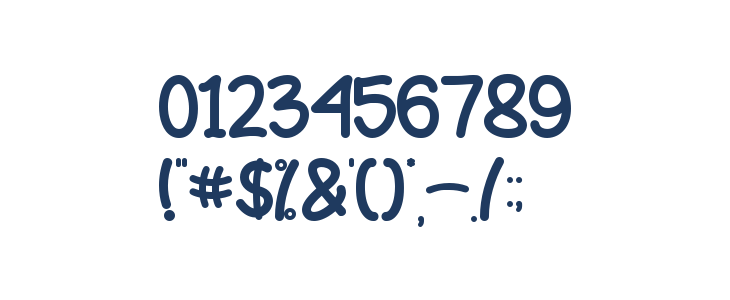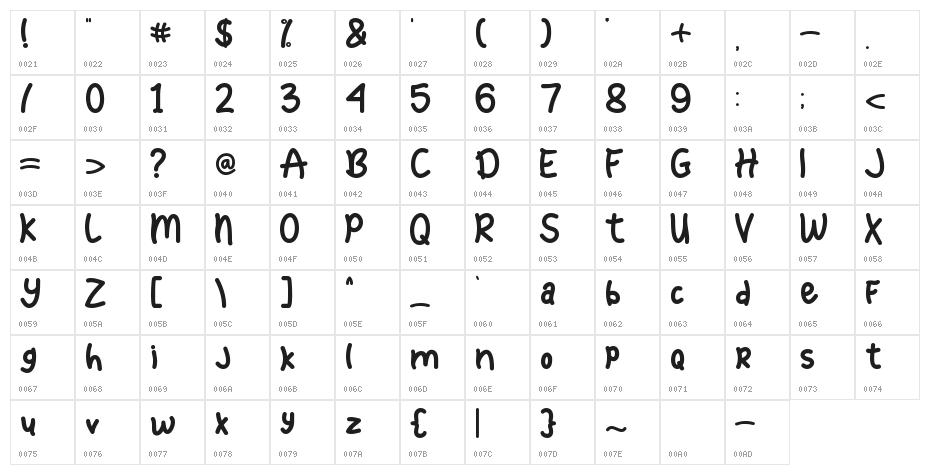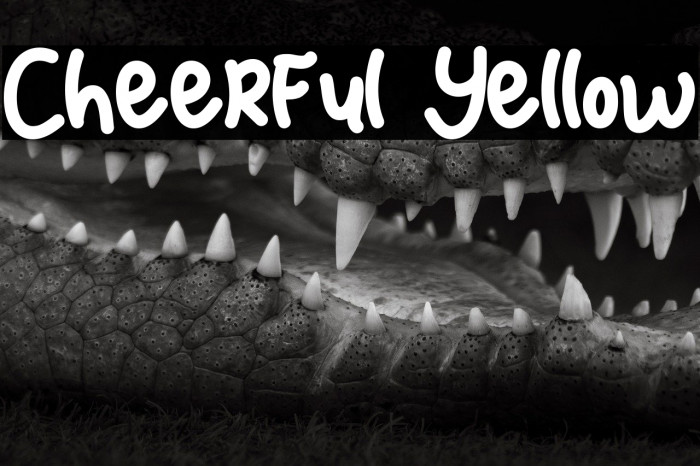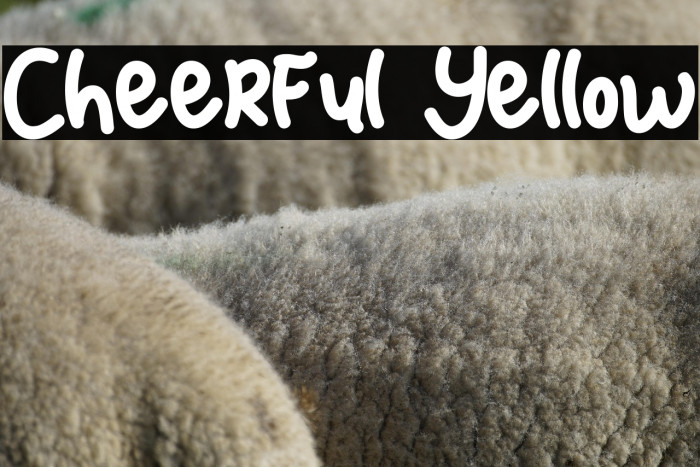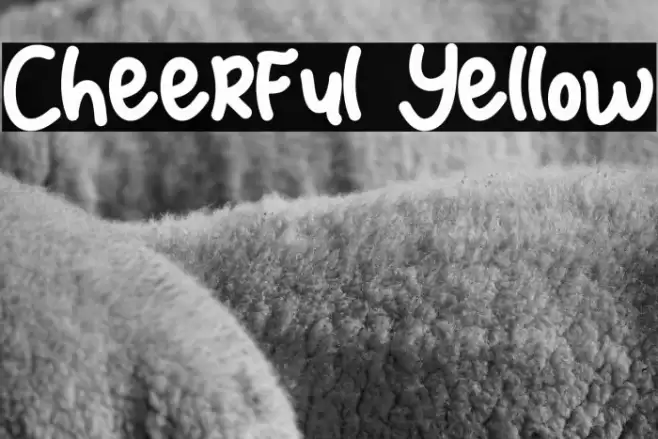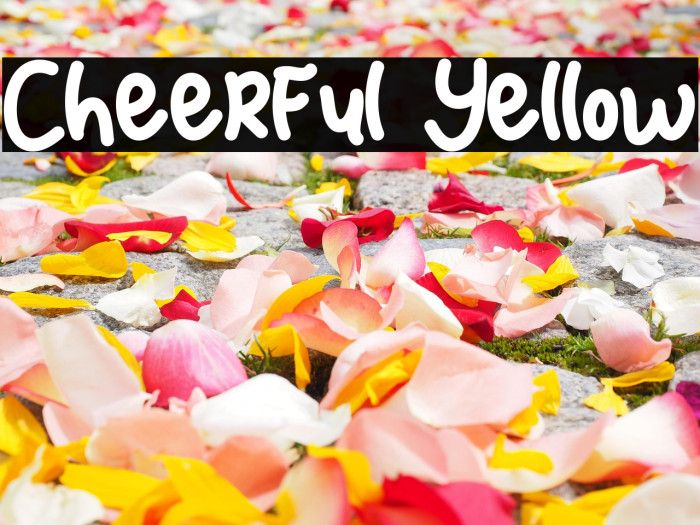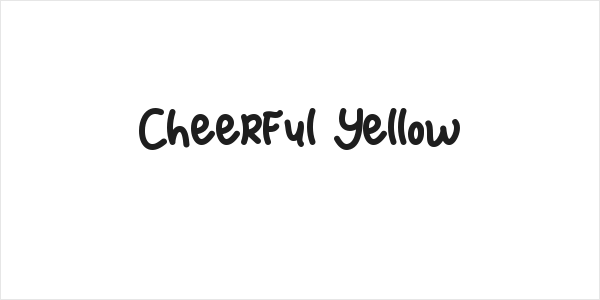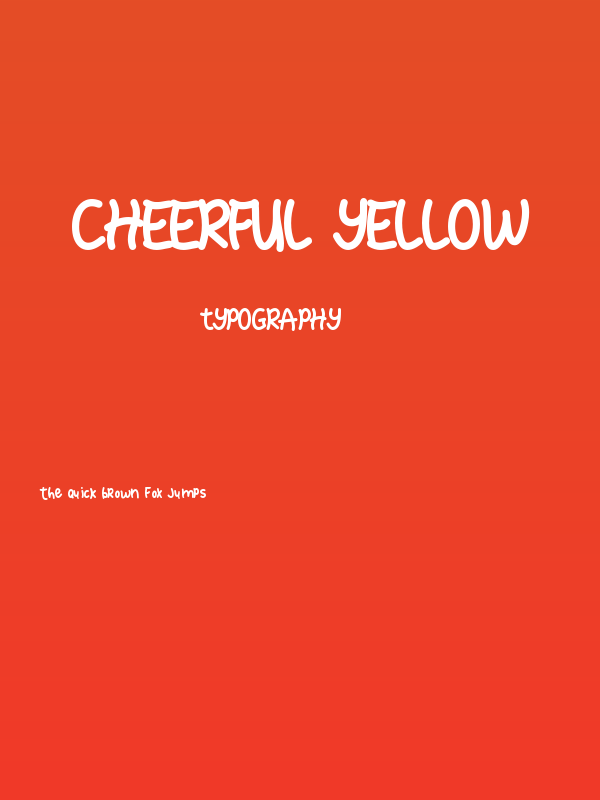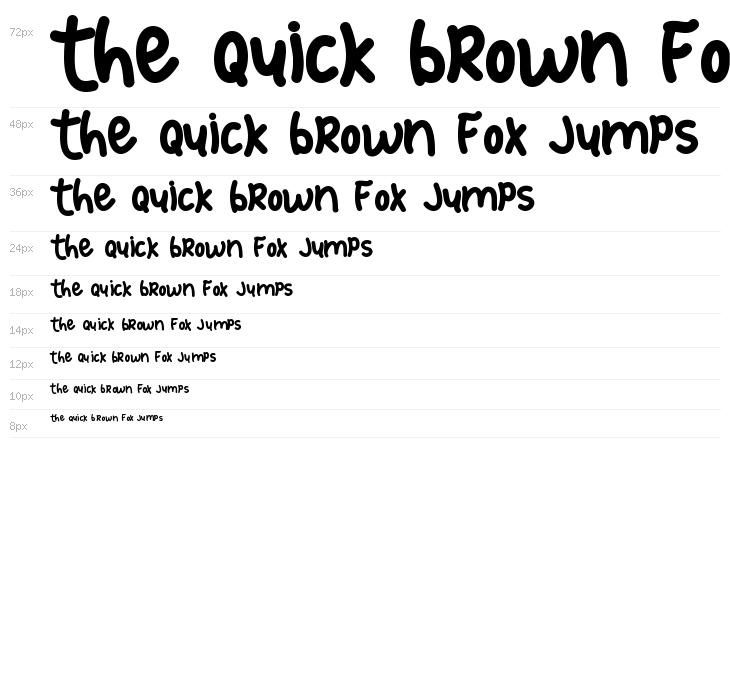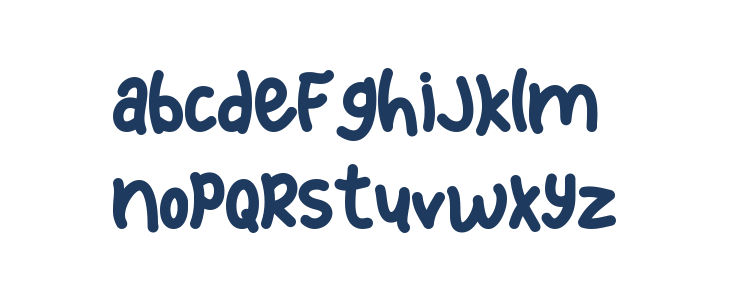
Cheerful Yellow Font
Cheerful Yellow Description
This playful and bold font features rounded, bubbly characters that convey a sense of fun and approachability. The letters are thick and uniform, with a slightly irregular baseline that adds to its whimsical charm. The font includes both uppercase and lowercase letters, numerals, and a variety of special characters, making it versatile for different design needs. Its bold strokes and rounded edges make it highly legible, even at smaller sizes. The overall style is casual and friendly, perfect for projects that aim to evoke joy and creativity.
Overall StylePlayful
Proposed ProjectsIdeal for children's books, playful branding, party invitations, and creative posters.